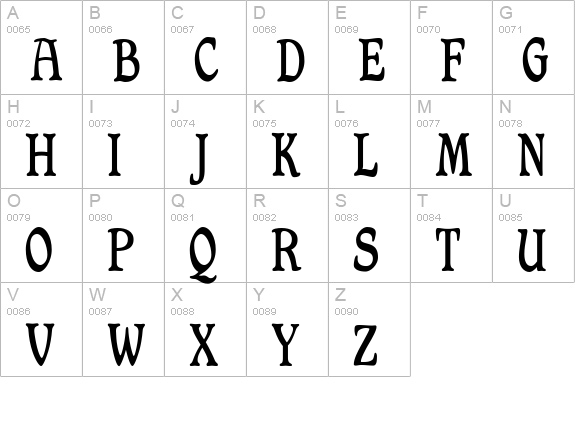
Introducing the exquisite Shrewsbury-Titling font, a captivating typeface that effortlessly combines elegance and sophistication. This font is perfect for adding a touch of class and charm to any design project, whether it be invitations, logos, or branding materials. Shrewsbury-Titling boasts a timeless appeal, with its beautifully crafted letterforms and delicate strokes. The tall and slender characters exude a sense of grace and refinement, making it ideal for capturing attention and creating a lasting impression. What makes Shrewsbury-Titling even more appealing is the fact that it is freely available to download at FontsMarket.com. Yes, you read that right - this remarkable font can be yours without any cost. Now you can enhance your creative endeavors without any financial constraints. With its extensive character set, including uppercase letters, numerals, punctuation marks, and special symbols, Shrewsbury-Titling offers endless possibilities for expressing your artistic vision. Its versatility makes it suitable for a wide range of design projects, from elegant wedding invitations to high-end fashion editorials. Immerse yourself in the world of Shrewsbury-Titling and let its beauty inspire your creative journey. Take advantage of this incredible opportunity to freely download this font at FontsMarket.com, and unlock the door to a world of elegance and sophistication in your designs.